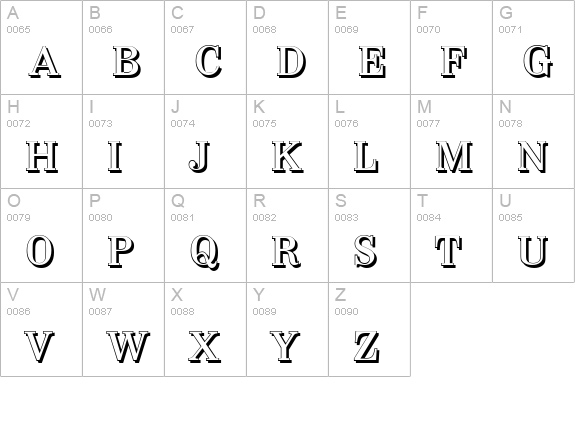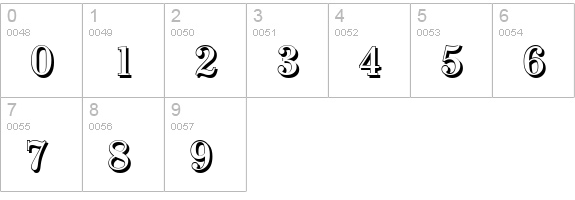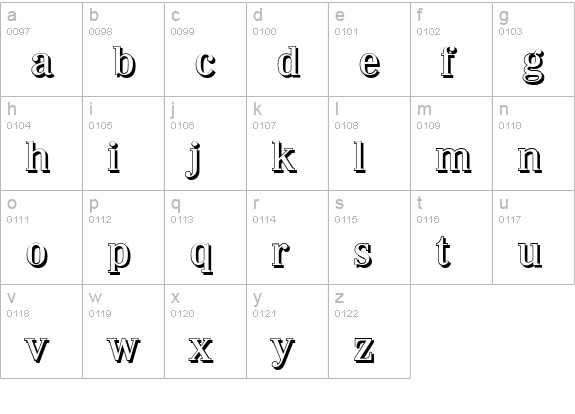
WichitaShadow-Medium-Regular Font Details
WichitaShadow-Medium-Regular is a balanced, medium-weight variant in the WichitaShadow typeface family \xE2\x80\x94 well suited to sub-headlines, navigation, and balanced editorial work.
Introducing WichitaShadow-Medium-Regular font, a captivating and versatile typeface that exudes a sense of mystery and elegance. This unique font features a subtle shadow effect that adds depth and dimension to your text, making it perfect for a wide range of design projects. With its clean lines and classic proportions, WichitaShadow-Medium-Regular font is ideal for creating eye-catching headlines, stylish logos, and sophisticated branding materials. Whether you're designing a website, crafting a poster, or working on a print project, this font will elevate your design to the next level. Best of all, WichitaShadow-Medium-Regular font is available for free download at FontsMarket.com. Simply visit the website to get your hands on this stunning font and start using it in your projects today. Elevate your designs with WichitaShadow-Medium-Regular font and make a lasting impression on your audience.